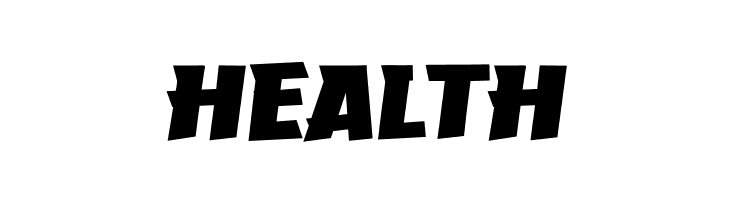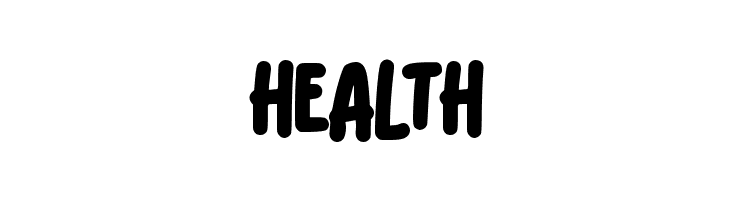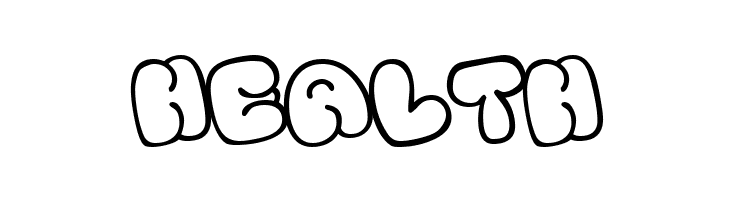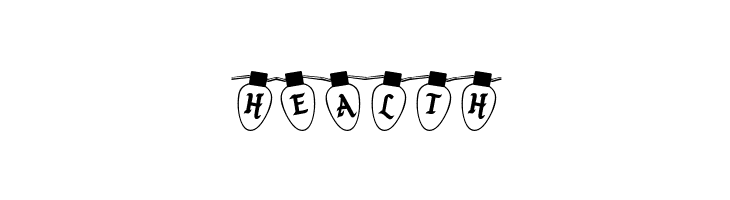
Bold, angular font with a dynamic, comic book style.
A bold, dynamic font with slanted characters and a modern style.
A bold, playful font with rounded edges and a hand-drawn style.
A playful, bubble-like font with bold, rounded characters.
Bold, geometric font with rounded corners and uniform thickness.
A futuristic, geometric font with elongated, narrow characters and a sleek design.
A bold, decorative font with circular embellishments and a modern, playful style.
A bold, vintage-style serif font with high contrast and dramatic serifs.
A festive, decorative font styled as Christmas lights, perfect for holiday themes.
A festive, hand-drawn font styled like Christmas light bulbs.